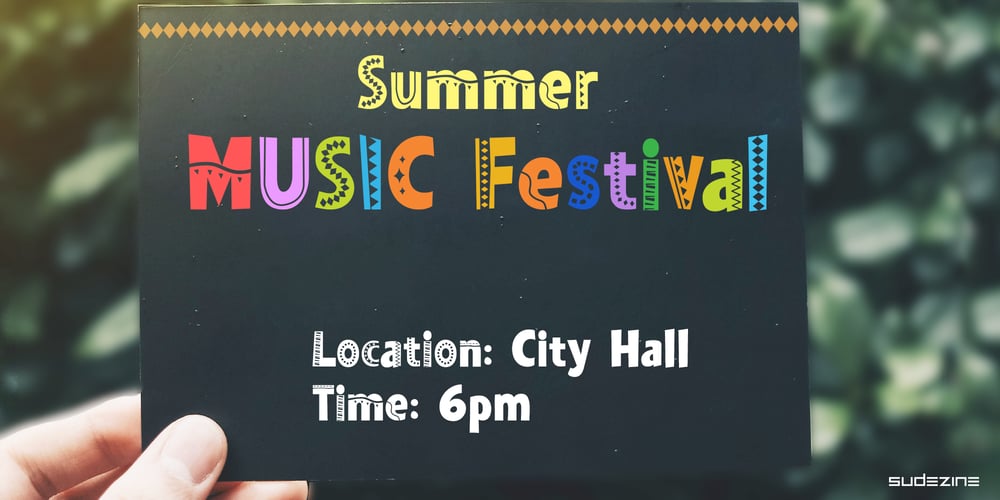
SDFestival Font Family was designed by Suhee Hwang and published by Sudezine. SDFestival contains 2 styles and family package options. SDFestival is a festival font. There are two versions. One is a regular font and the other is a decorative font. You can use mix and match. Use for logos, quotes, invitations, greeting cards, journals, posters, apparel and more.